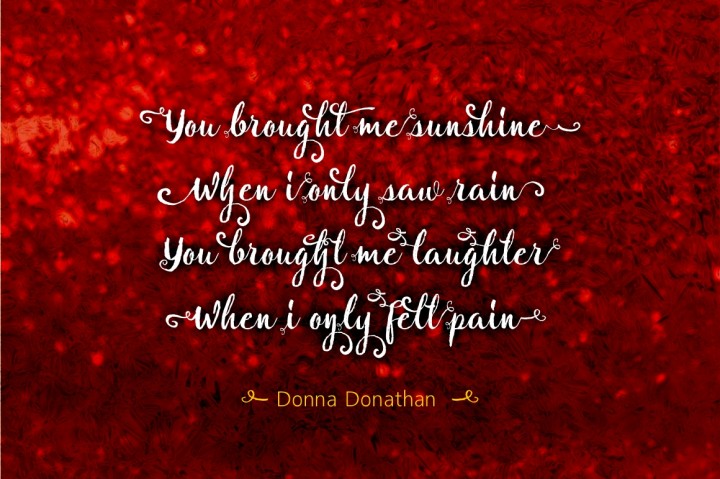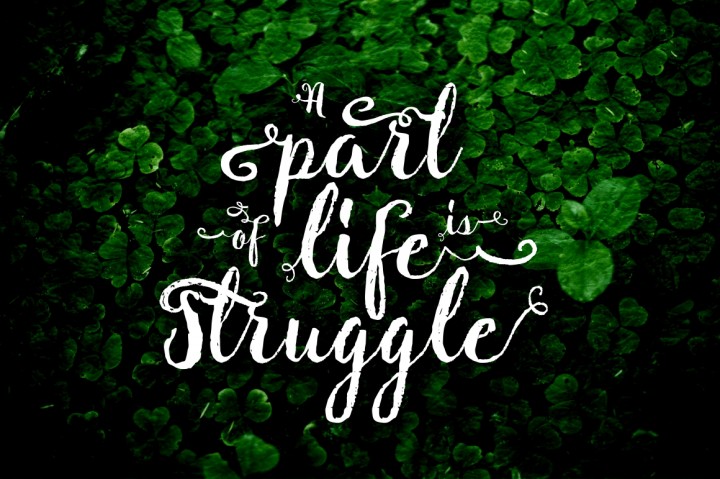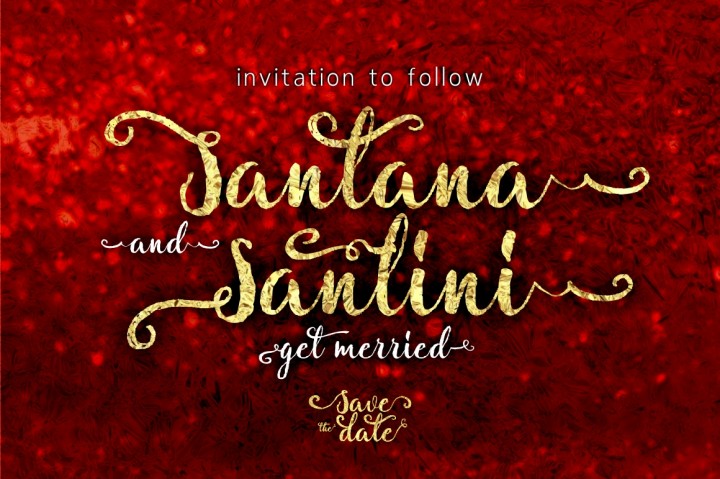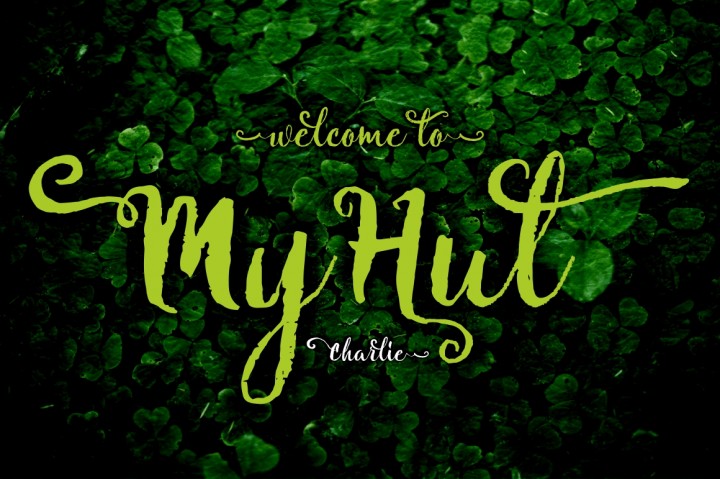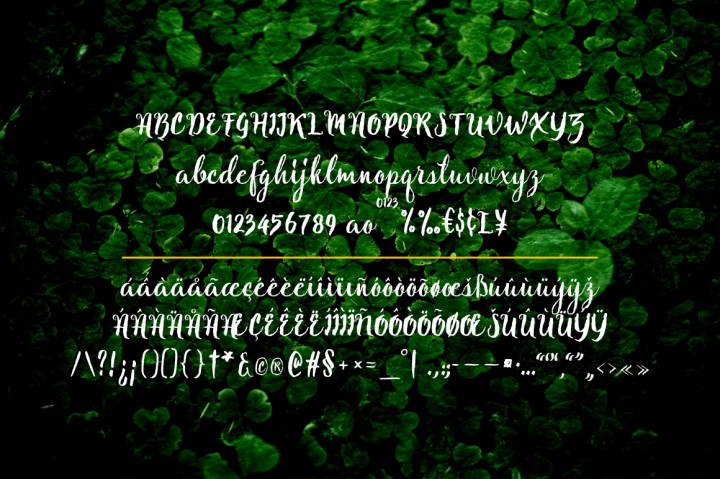
Natural Script Font
Natural Script Font is a romantic, delicate, handwritten font. is a new varian of handmade script typepace. present to you to complete your colections of script font. This typeface has been enriches with additional alternates characters up to 630 glyphs. Do hope helpfully to catch any design soul. finally, no word to say than “Go success and enjoy it”.